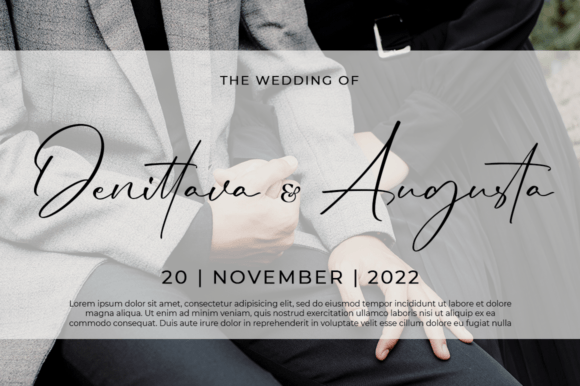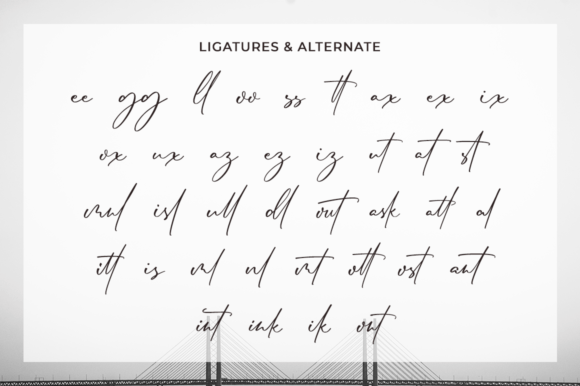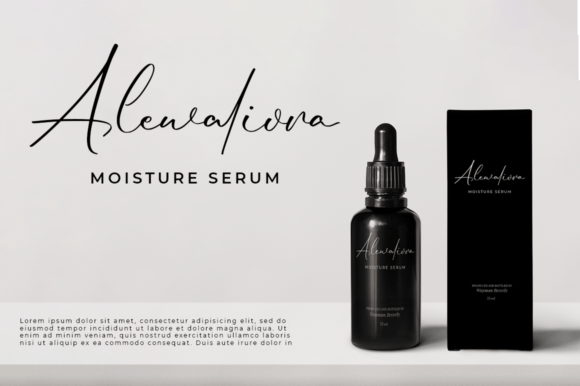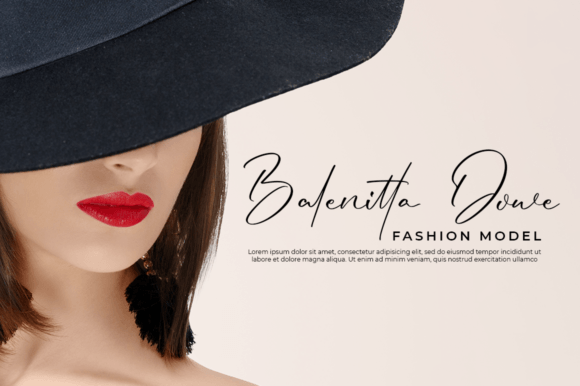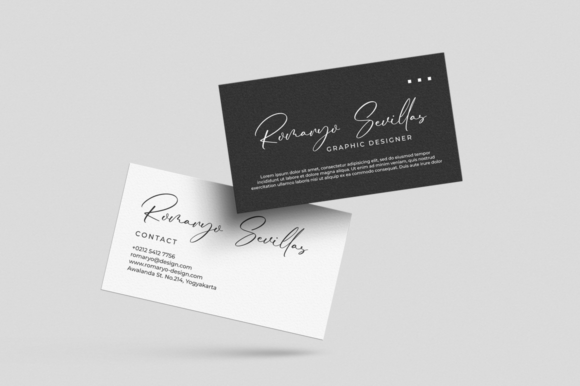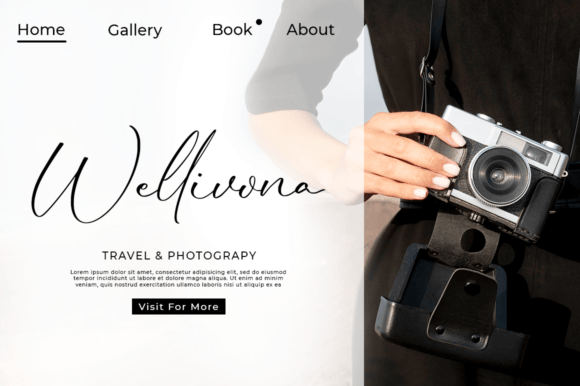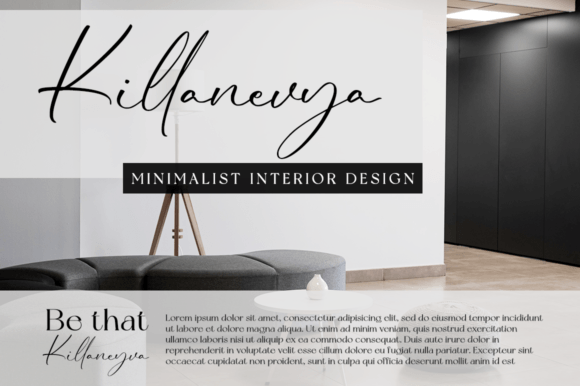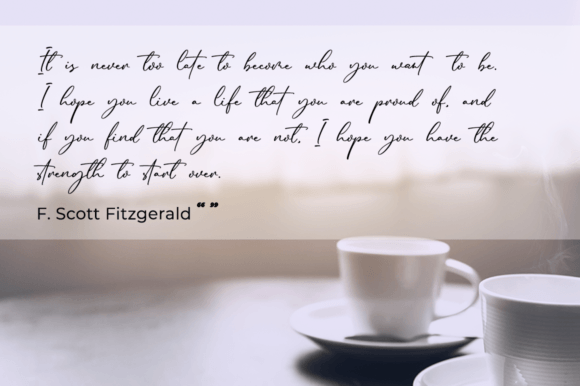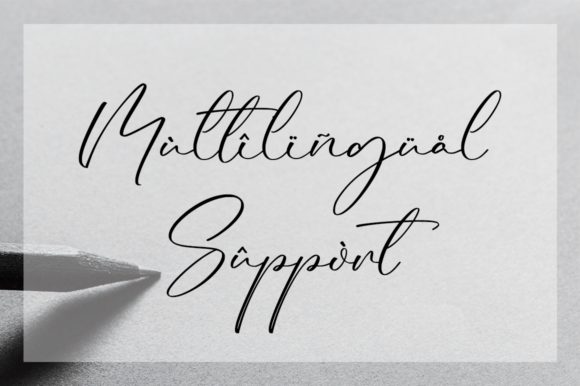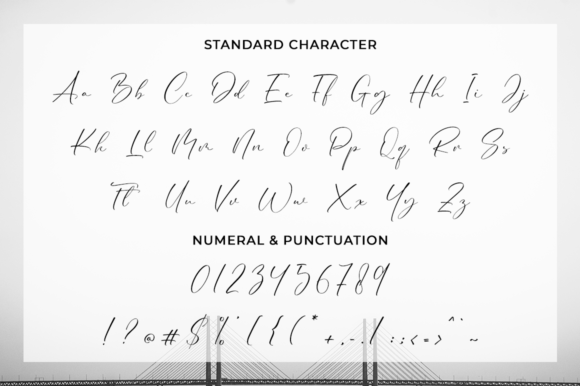
Constanley Font
A Beautiful and Delicate Handwritten Font
The Constanley Font is a beautiful and delicate handwritten typeface that offers a unique feel and stunning impact. With its elegant strokes and graceful design, this font adds a luxury spark to any design project. Whether you’re working on branding, invitations, logos, or business cards, the Constanley Font brings a refined and sophisticated touch to your work.
Perfect for Luxury Designs and Branding
For luxury designs and branding, the Constanley Font is an excellent choice. Whether you’re designing a high-end brand, premium product packaging, or elegant logos, this font gives your branding materials a unique, memorable feel. Its delicate handwritten style ensures your designs stand out with sophistication and luxury, making it ideal for upscale businesses looking to convey class and refinement.
Ideal for Invitations and Special Occasions
For invitations and special occasions, the Constanley Font provides a charming and timeless touch. Whether you’re creating wedding invitations, gala event invitations, or thank you cards, this font adds a luxurious flair that makes your designs feel special. Its handwritten appeal ensures that your stationery is not only beautiful but also deeply personal, perfect for memorable events.
Great for Logos and Business Cards
The Constanley Font is ideal for logos and business cards. Its graceful design makes it a perfect choice for brands that want to project an image of elegance and exclusivity. Whether you’re working on a fashion logo, corporate brand, or creative business card, this font ensures your logo looks sophisticated and your business materials leave a lasting impression.
Elegant, Legible, and Versatile
Despite its elegant and handwritten style, the Constanley Font remains legible and versatile. Its clean, well-spaced strokes make it easy to read, even at smaller sizes or for longer text passages. Whether you’re creating headlines, captions, or body text, this font strikes the perfect balance between artistic charm and readability, making it perfect for a wide variety of creative applications.
PUA Encoded for Easy Access to Glyphs and Ligatures
The Constanley Font is PUA encoded, meaning you can easily access all of its glyphs, ligatures, and swashes. This feature gives you full creative control, allowing you to personalize your designs with decorative flourishes and unique letter combinations. Whether you’re working on branding, wedding stationery, or logos, this font lets you add a refined, luxurious touch to every project.
Add Luxury and Elegance to Your Designs with Constanley Font
If you’re looking for a beautiful, delicate, and luxurious handwritten font to elevate your designs, the Constanley Font is the perfect choice. Whether you’re working on branding, invitations, logos, or business cards, this font brings a timeless, sophisticated touch to your work. Let the Constanley Font add charm, luxury, and elegance to your creative projects and help them stand out with style.